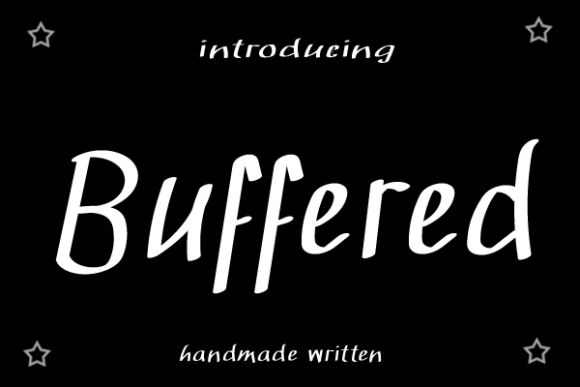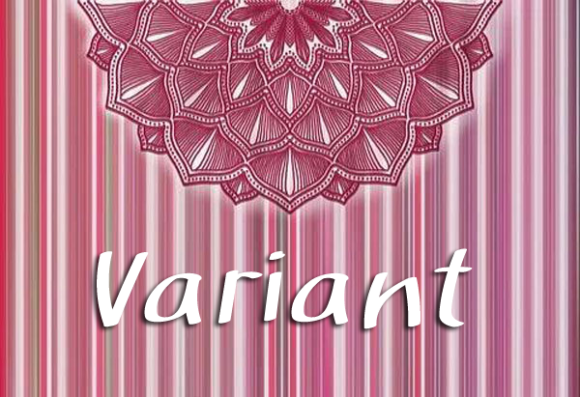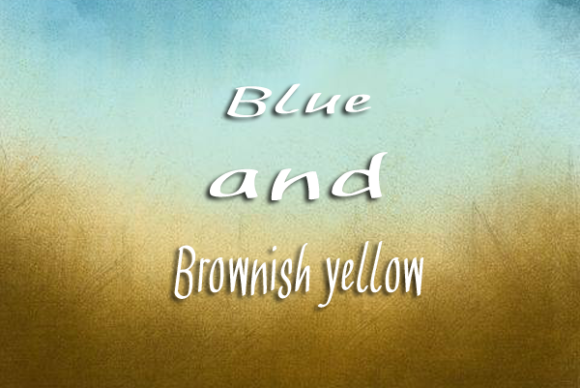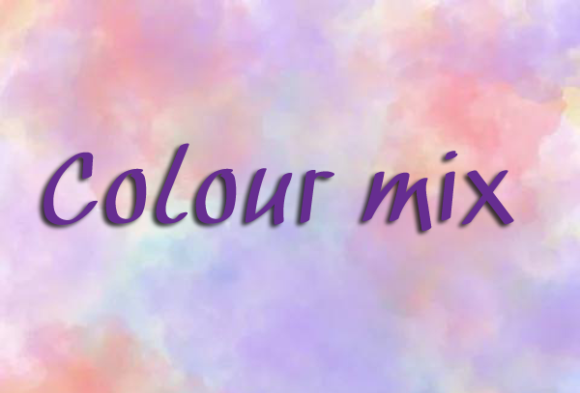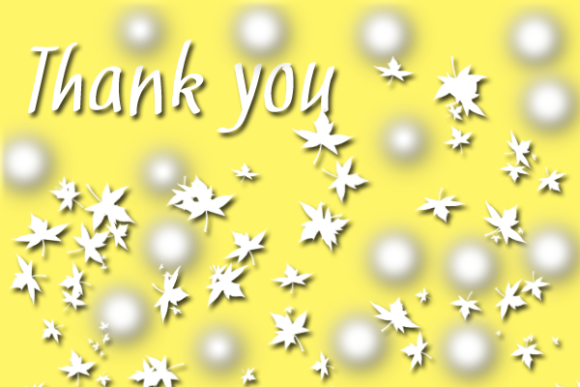
About Buffered Font
Buffered is a flowing handwritten font, described by an elegant touch, perfect for your favorite projects. Fall in love with its incredibly distinct and timeless style and use it to create spectacular designs!